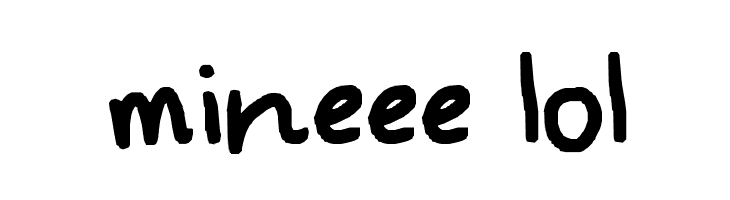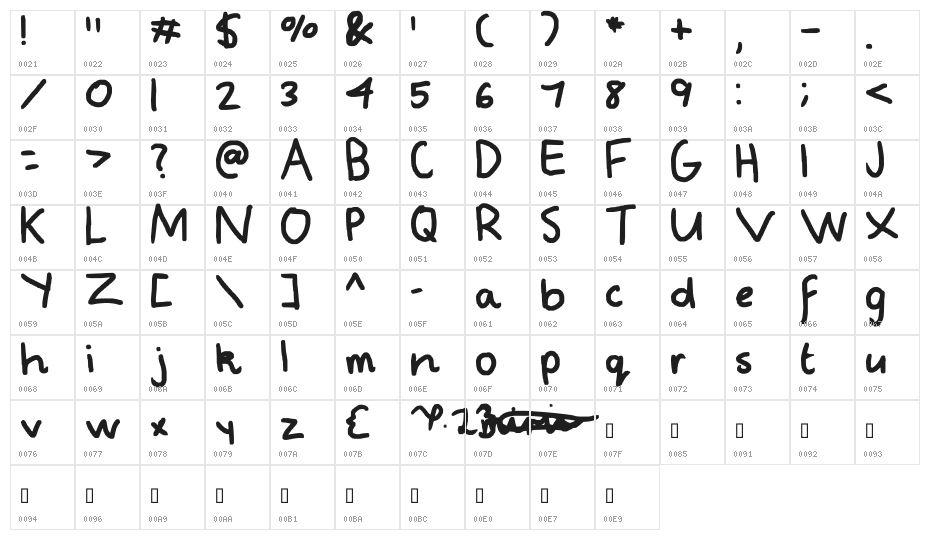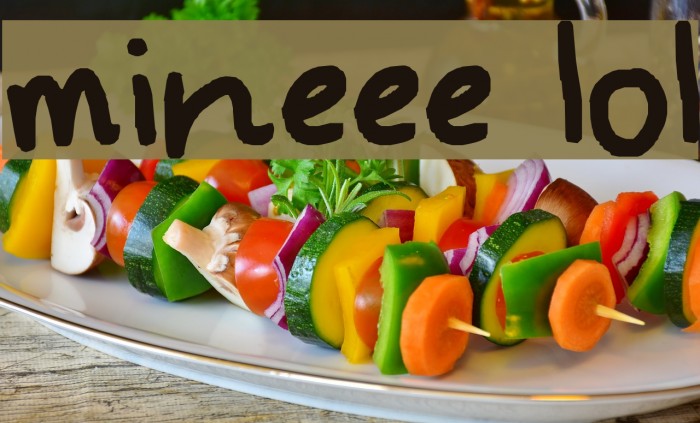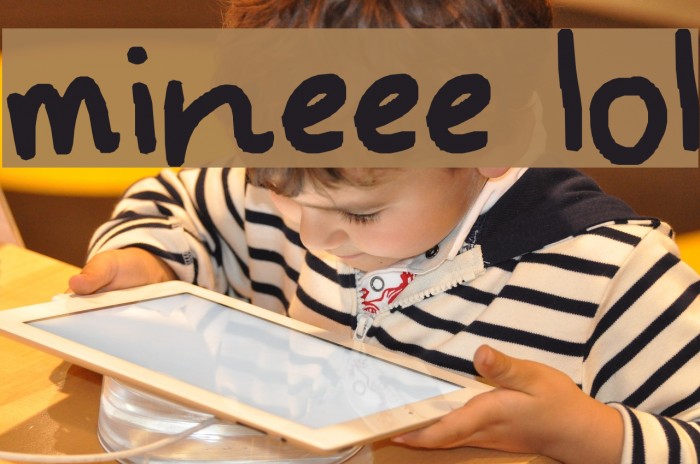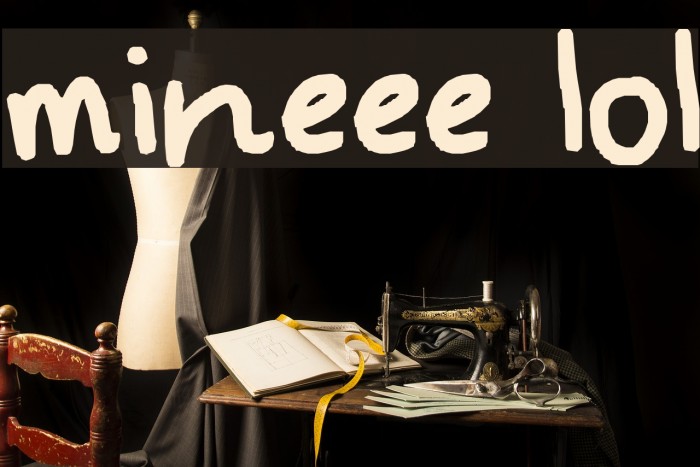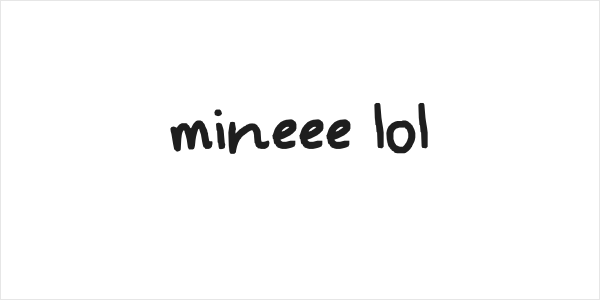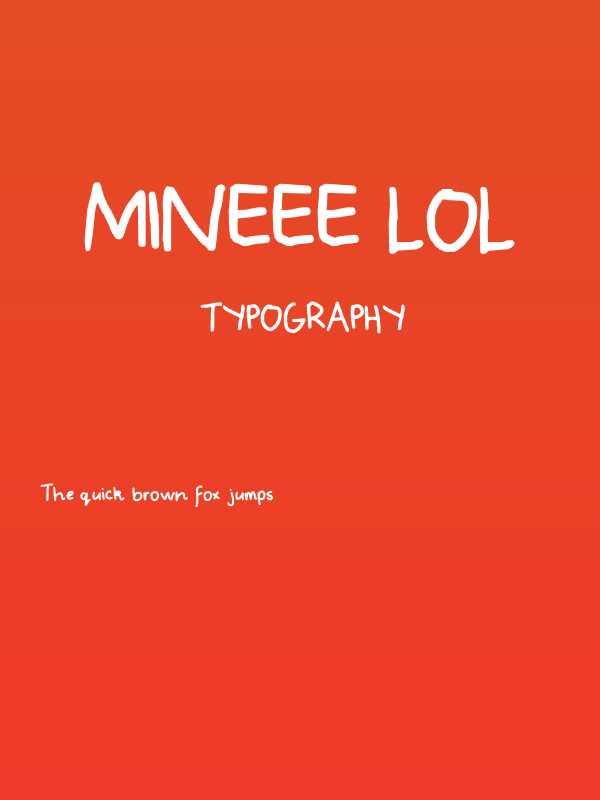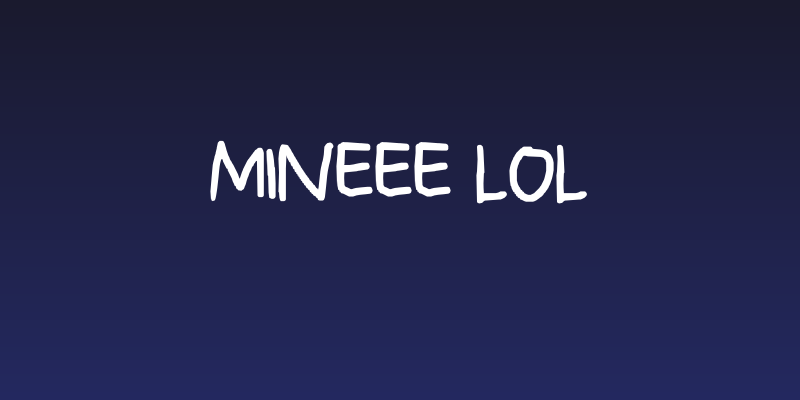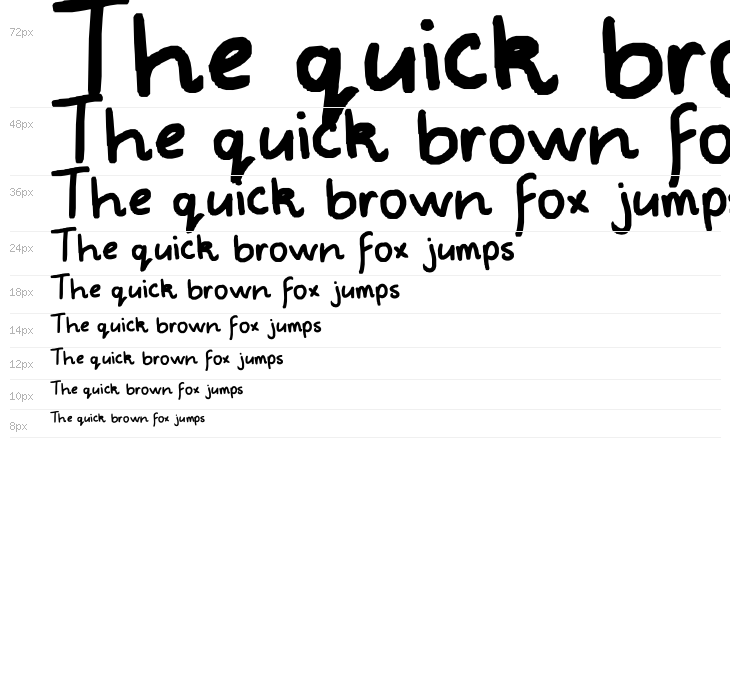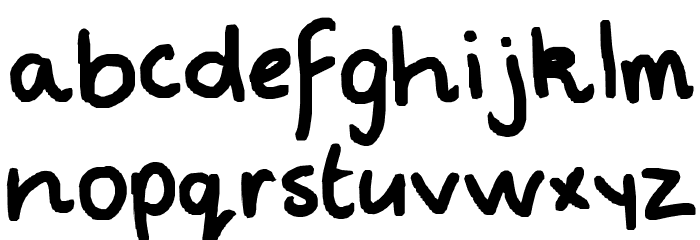
mineee lol Font
mineee lol Description
This font features a playful and casual handwritten style, characterized by its bold and slightly irregular strokes. The uppercase and lowercase letters exhibit a consistent flow, with rounded edges and a friendly appearance. The numerals and special characters maintain the same informal aesthetic, making the font suitable for projects that require a personal touch. Its overall look is approachable and lively, ideal for conveying a sense of warmth and creativity. The font's design is versatile, allowing it to be used in various contexts where a relaxed and informal tone is desired.
| Proposed Projects | Ideal for greeting cards, children's books, casual branding, and social media graphics. |